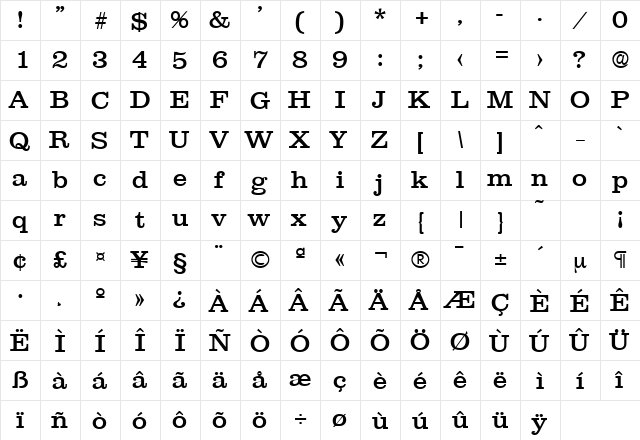
Clarendon-Serial Regular
Design Context for Clarendon-Serial Typeface
Clarendon-Serial features prominent, blocky serifs that give it a confident, grounded presence — equally at home in editorial settings and bold branding work.
Works well in editorial design, news publishing, impactful branding, and poster typography.
Pro Tip: Try Clarendon-Serial set tight in headlines for a classic editorial feel. Its slab serifs create strong horizontal rhythm that anchors a page layout.